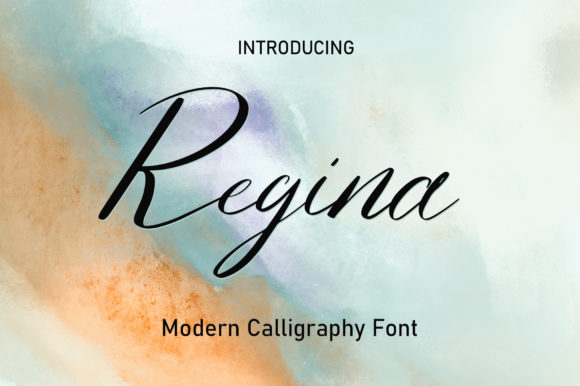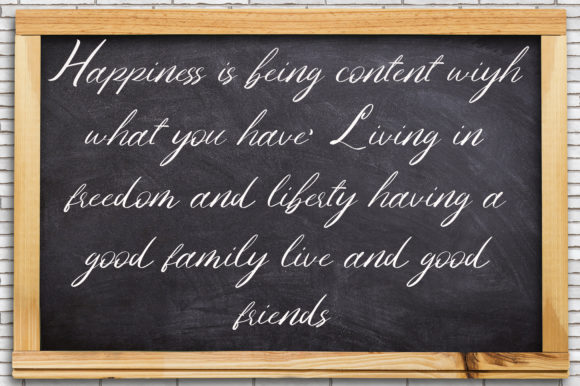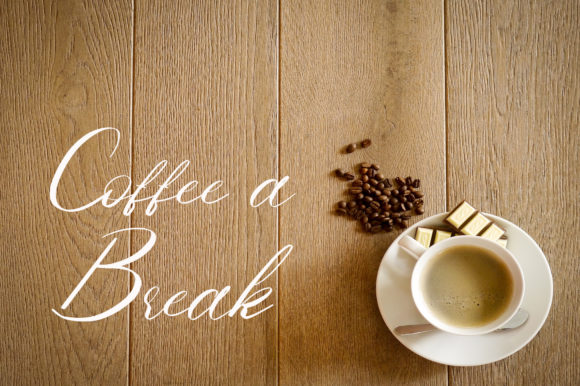
Regina Font
About Regina Font
Regina is an enchanting handwritten font. This versatile font has a wide spectrum of applications ranging from greeting cards to headlines and is guaranteed to add a romantic feel to your next project!